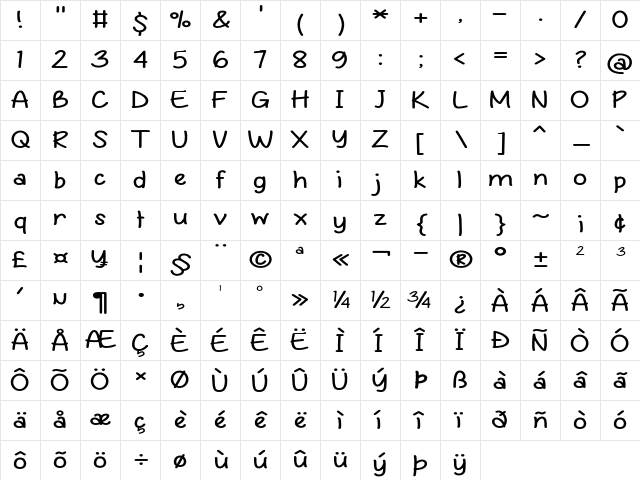
Drawntastic Expanded Regular
Style: Expanded Regular
Drawntastic Family
Drawntastic Expanded Regular
Design Context for Drawntastic
Drawntastic is a composed and adaptable typeface that performs quietly and consistently across a wide range of design contexts.